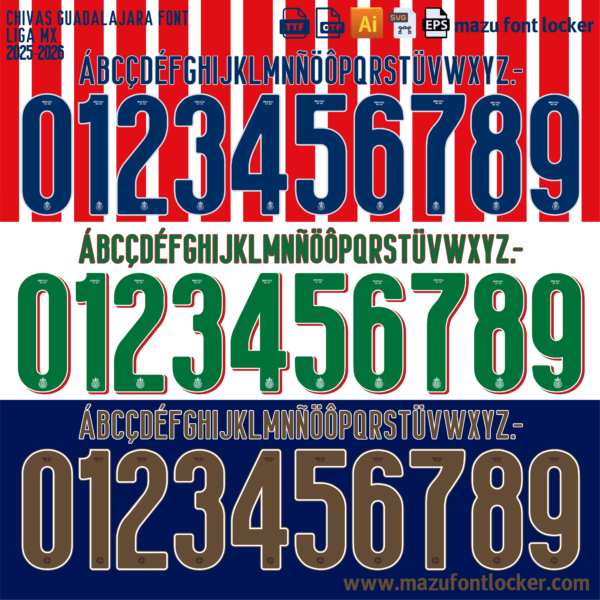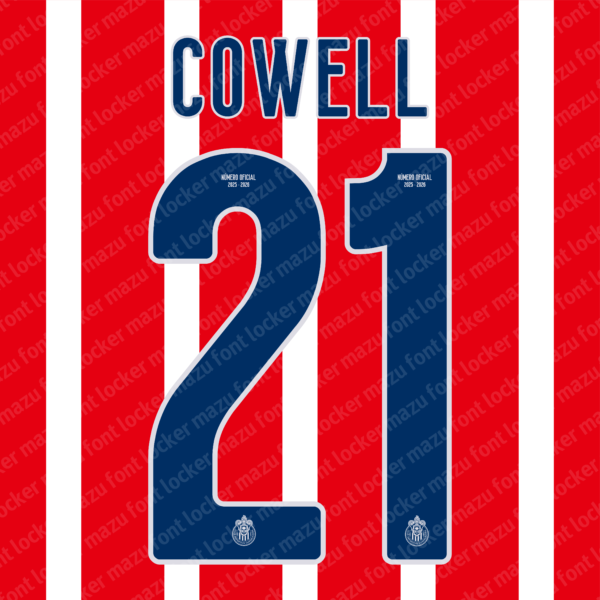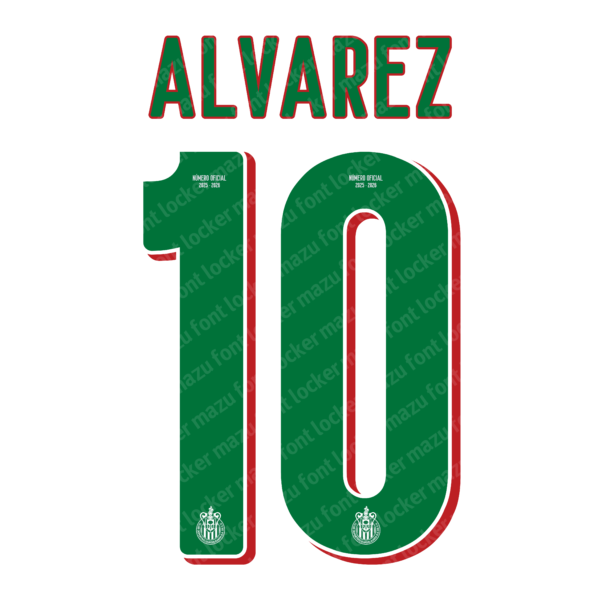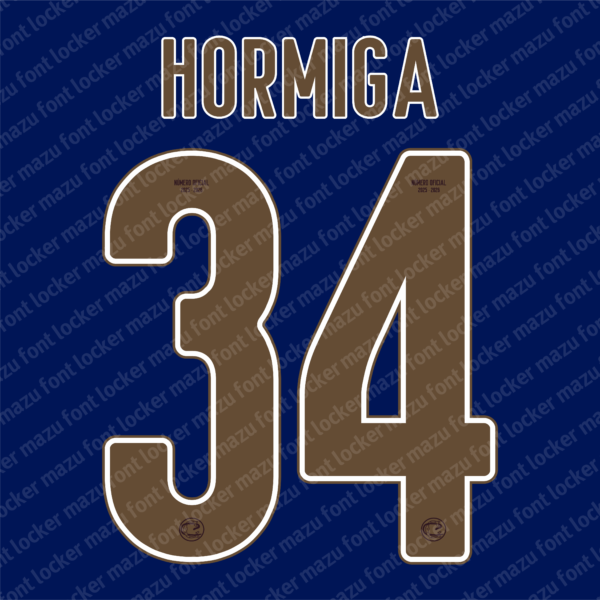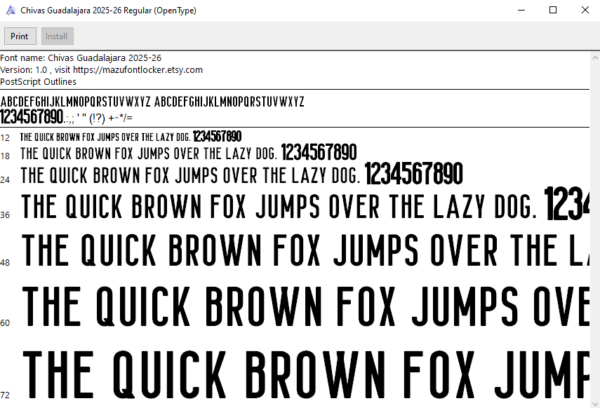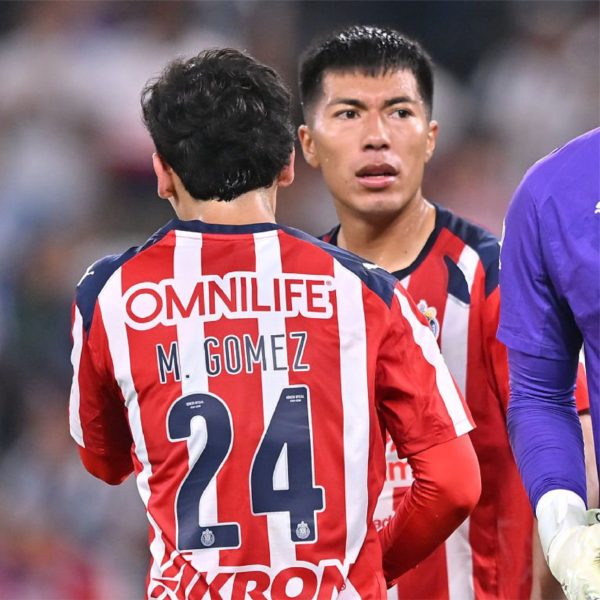
Chivas Guadalajara 2025-2026 Font Vector – Legendary Mexican Reds Powerhouse Masterpiece
🔥 Elevate your designs with the Chivas Guadalajara 2025-2026 Font, a premium football jersey font vector that perfectly captures the bold spirit and rich heritage of one of Mexico’s most passionate clubs. This high-quality vector set faithfully recreates the official lettering and numbering style from the Chivas 2025-2026 season kit, delivering sharp, professional results for both digital and print projects.
The Chivas Guadalajara 2025-2026 Font is meticulously crafted for designers, football fans, jersey customizers, and apparel creators who demand authenticity and excellence. Every curve, edge, and number has been refined to reflect the powerful red-and-white identity that defines Club Deportivo Guadalajara.
Whether you’re creating custom jerseys, posters, sublimation prints, or digital artwork, the Chivas Guadalajara 2025-2026 Font gives your projects that premium, match-day authentic feel. Stand out with this iconic Mexican powerhouse font and bring the legendary Chivas energy to every creation.
Chivas Guadalajara 2025-2026 Font Vector
The Chivas Guadalajara 2025-2026 Font is a premium, high-precision football jersey font vector meticulously crafted to replicate the official bold lettering and commanding numbering style of the iconic 2025-2026 season.
Inspired by the legendary Chivas kit, this font delivers a fierce, passionate, and majestic match-day presence that radiates the club’s rich heritage, fighting spirit, and unbreakable pride. Every letter and number has been painstakingly recreated with exceptional detail to capture the sharp, powerful, and timeless aesthetic that defines one of Mexico’s greatest clubs.
🔥 Chivas Guadalajara 2025-2026 Font Features
- Authentic 2025-2026 Chivas Guadalajara jersey lettering style
The authentic lettering style helps recreate the classic look of the Chivas Guadalajara 2025-2026 kit with professional accuracy.
Unlike generic jersey fonts, this set is designed with a strong focus on authenticity and accuracy. Every detail is based on the original match lettering style used during the 2025-2026 Season, helping designers and collectors create realistic football shirt designs.
This Chivas Guadalajara 2025-2026 font vector set is designed for authentic football jersey customization and works perfectly for retro football projects, collector designs, and professional sportswear artwork.